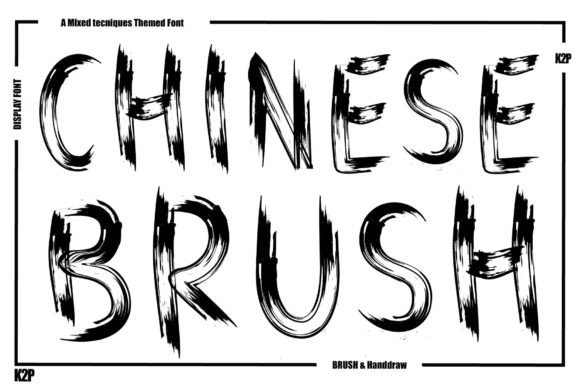
Introducing Chinese Brush Font: A Bold and Assertive Display Font
The Chinese Brush Font is a stunning display font that exudes boldness, coolness, and assertiveness. Its unique design makes it an excellent choice for various projects related to Japanese culture, but its versatility extends far beyond. In this article, we’ll delve into the world of Chinese Brush Font, exploring its features, uses, and the endless creative possibilities it offers.
Key Features of Chinese Brush Font
- Bold and Assertive: Chinese Brush Font boasts a confident and eye-catching design, making it perfect for headlines, titles, and statements that demand attention.
- Incredibly Cool: The font’s unique blend of traditional and modern elements gives it a refreshingly cool and edgy vibe, ideal for designs that require a touch of sophistication.
- Versatile: Although inspired by Japanese culture, Chinese Brush Font can be used for a wide range of projects, from logos and branding to posters, flyers, and digital media.
Exploring Design Possibilities with Chinese Brush Font
Chinese Brush Font’s adaptability makes it an excellent addition to any designer’s toolkit. Here are some ideas to get you started:
- Japanese-Inspired Designs: Use Chinese Brush Font to create stunning designs that reflect Japanese culture, such as posters, flyers, or brochures for cultural events, festivals, or traditional Japanese restaurants.
- Logos and Branding: The font’s bold and assertive nature makes it perfect for logos, business cards, and other branding materials that require a strong visual statement.
- Digital Media: Chinese Brush Font can add a unique touch to digital media, such as social media graphics, blog posts, or website headers.
- Advertising and Marketing: The font’s attention-grabbing design makes it an excellent choice for advertising and marketing materials, such as billboards, posters, or flyers.
Unlocking Endless Creative Possibilities
Chinese Brush Font offers a world of creative possibilities, limited only by your imagination. Here are some ideas to inspire you:
- Experiment with Colors: Try pairing Chinese Brush Font with different colors, gradients, or textures to create unique and eye-catching designs.
- Combine with Other Fonts: Mix Chinese Brush Font with other fonts to create interesting contrasts and add depth to your designs.
- Play with Typography: Use Chinese Brush Font to create stunning typographic designs, such as quotes, phrases, or lyrics.
- Incorporate Graphics: Combine Chinese Brush Font with custom graphics, illustrations, or icons to add an extra layer of visual interest.
Tips and Tricks for Working with Chinese Brush Font
To get the most out of Chinese Brush Font, keep the following tips in mind:
- Keep it Simple: While Chinese Brush Font is bold and assertive, it’s essential to balance it with simple and clean design elements to avoid visual overload.
- Use it Sparingly: Due to its bold nature, Chinese Brush Font works best when used sparingly. Use it for headlines or key messages, and opt for a simpler font for body text.
- Pay Attention to Legibility: Ensure that your design is legible by choosing a font size and color that provides sufficient contrast with the background.
Chinese Brush Font is an incredible display font that offers a world of creative possibilities. Its bold, cool, and assertive design makes it perfect for a wide range of projects, from Japanese-inspired designs to logos, branding, and digital media. With its endless variations and versatility, Chinese Brush Font is sure to become a staple in any designer’s toolkit.